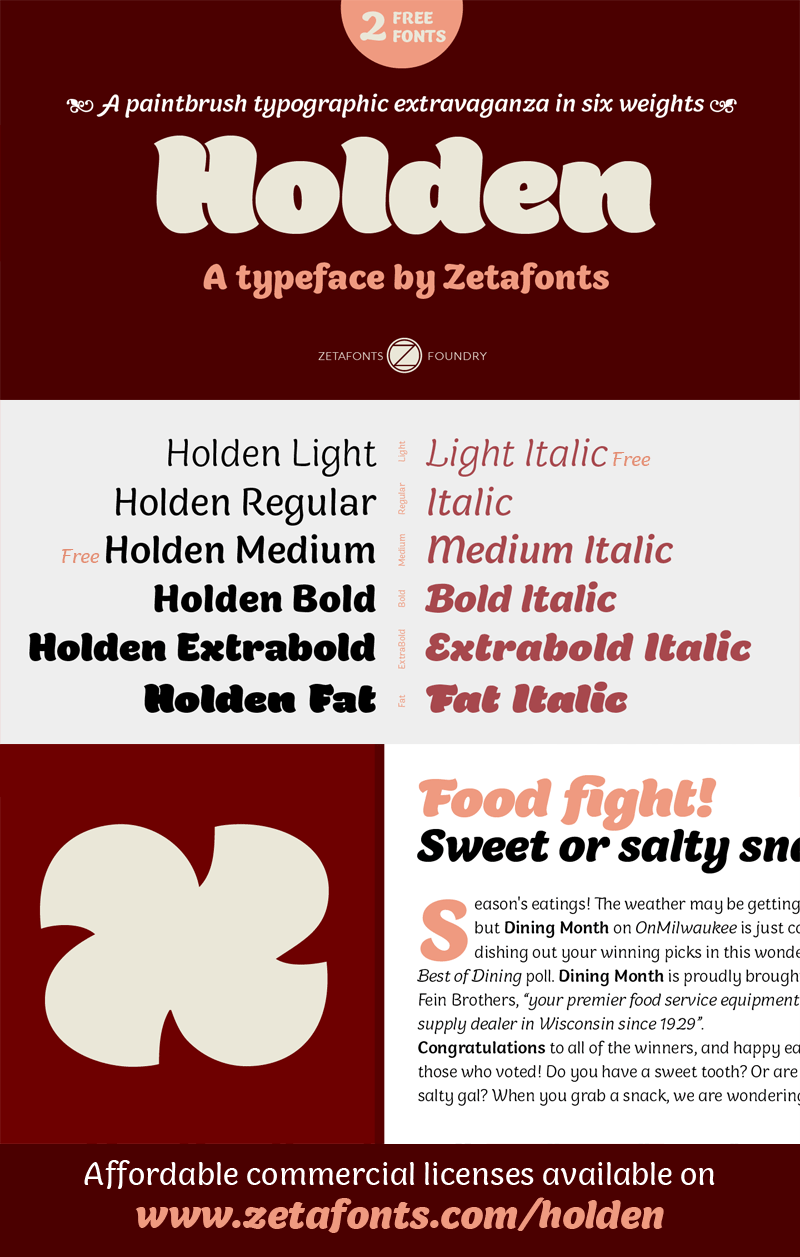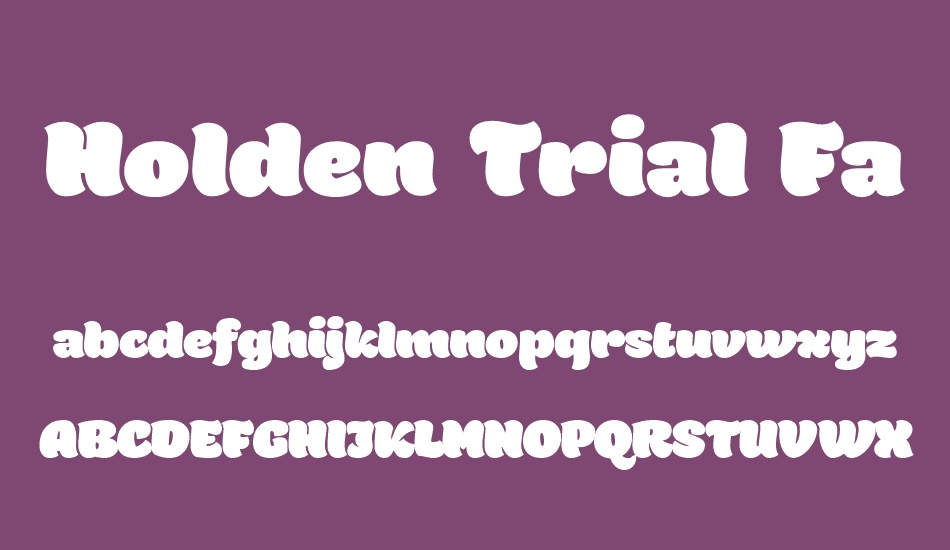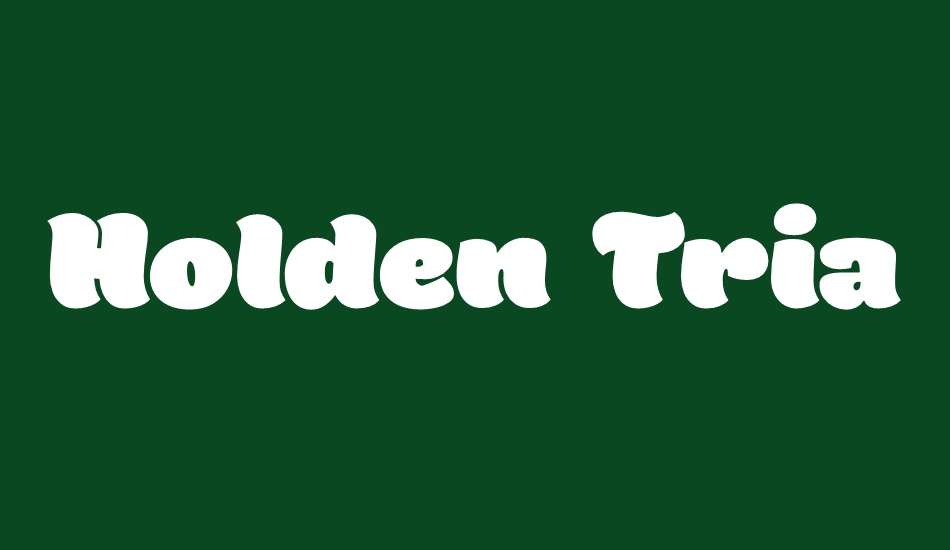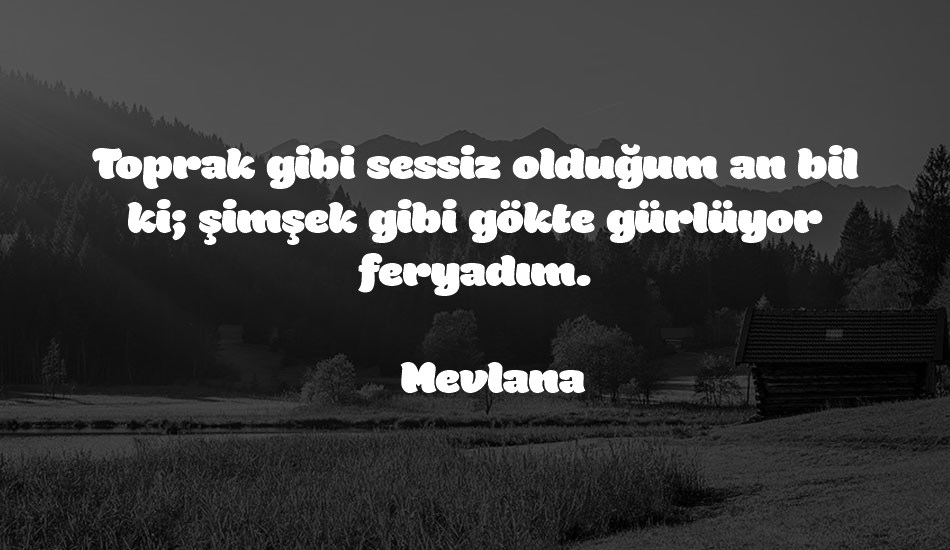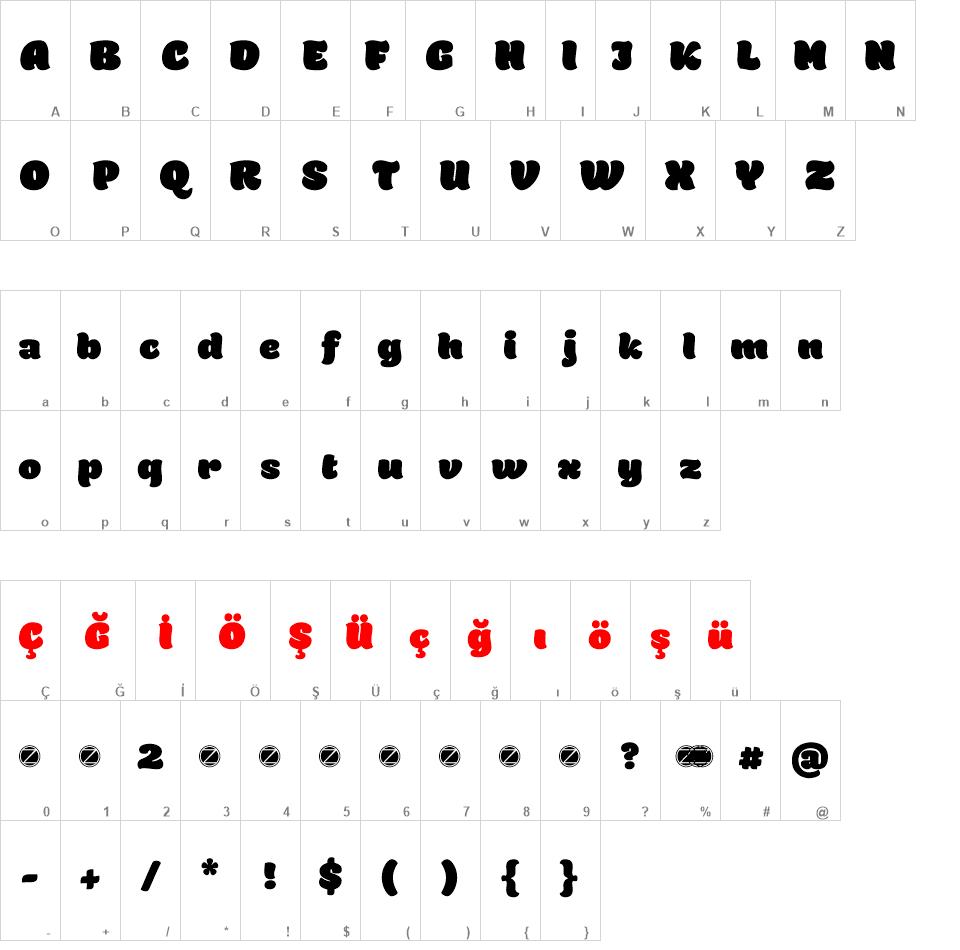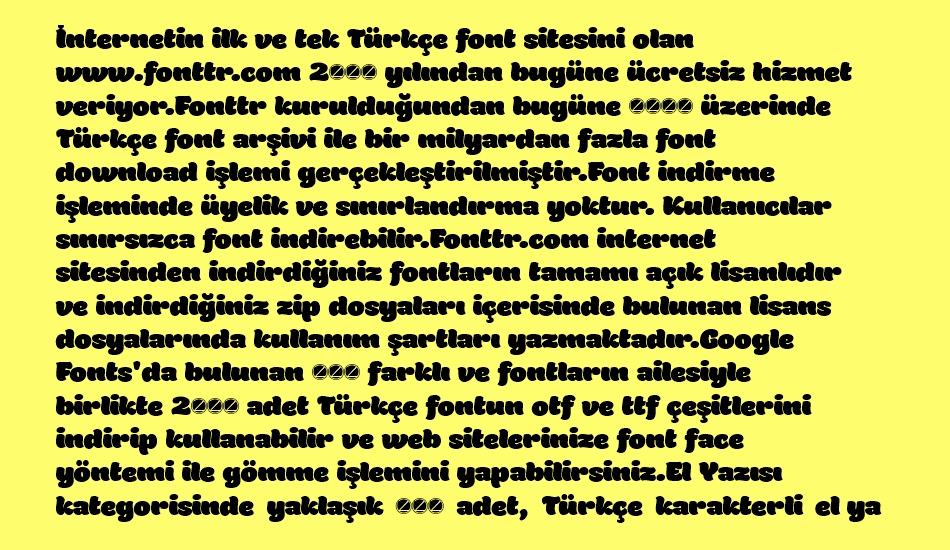
Holden
Holden is a typeface family designed in 2018 for Zetafonts by Cosimo Lorenzo Pancini with Andrea Tartarelli as a research in texture and extreme weight range. Its curvy shapes, inspired by pointed brush aesthetics, are developed in six different weights, from the lightly contrasted thin to the fluid and rhythmic fat.
The lightest weights are mostly designed for text usage, while the heavier weights work better at display sizes, where the extreme shapes and tight counter-spaces are better appreciated.
Holden aims to fill the space between display and text typeface, with a range of variants that allows maximum expression in display use and great legibility in long texts, on the web and at small size. Holden is designed for editorial or packaging use where a contrasting range of weights and variants is required to fight monotony while keeping branding consistent.
All Holden fonts include full open type features with stylistic alternates, small caps, discretionary ligatures, positional number forms, swash forms (in italics) and full language coverage for +70 languages using latin alphabet.
An array of extra decorative dingbats are included to complement your design with pointing manicules and fleurons (also called "horticultural dingbats" by Robert Bringhurst in The Elements of Typographic Style).
Holden Trial Fat font